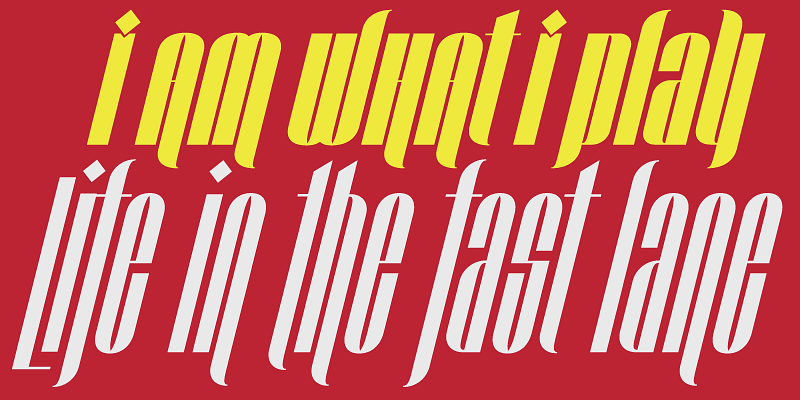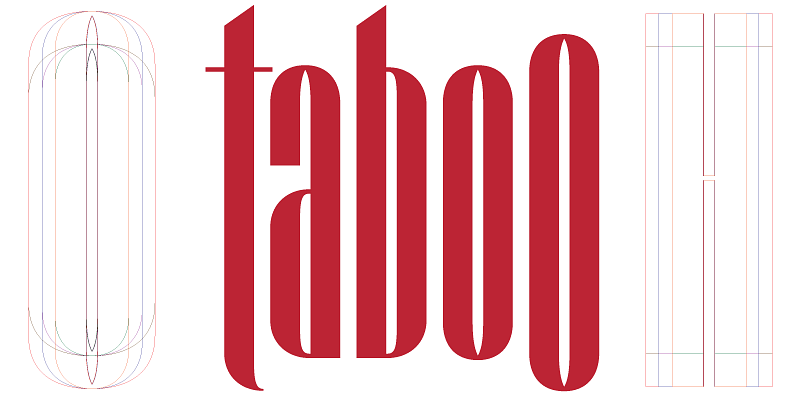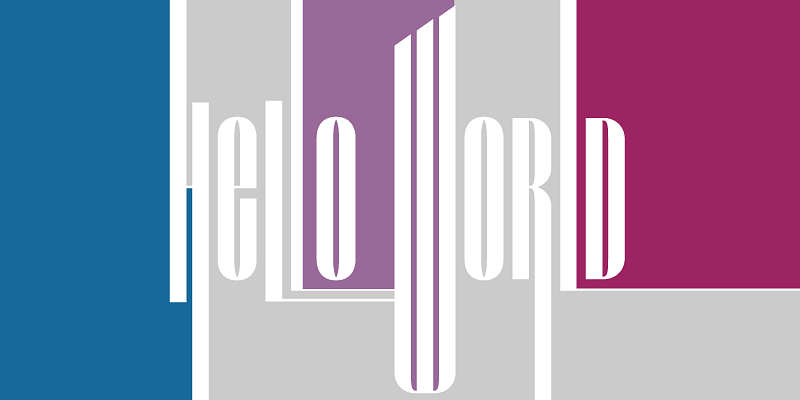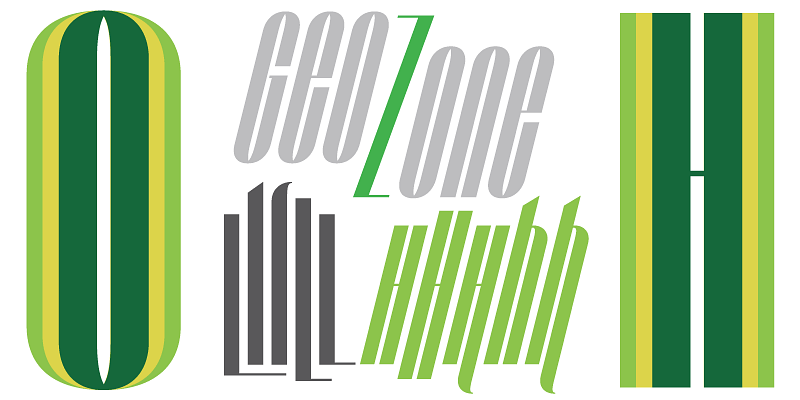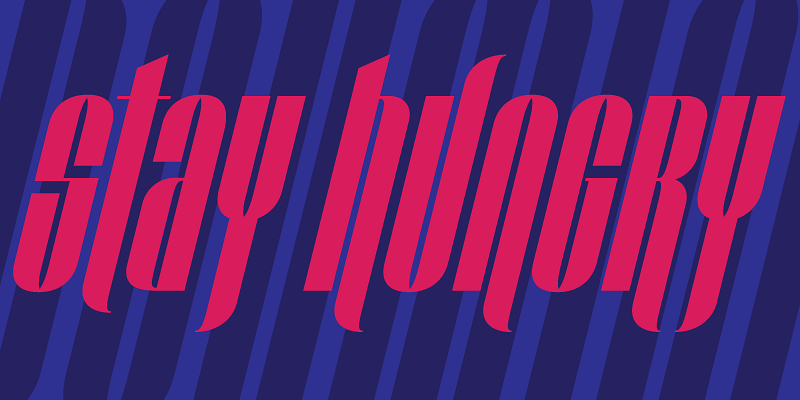
The principal idea behind the Taboo fonts is simple geometry of constant counter space and identical horizontals, with the verticals serving as weight and width index. The forms inflate geometrically, but their core remains unchanged.